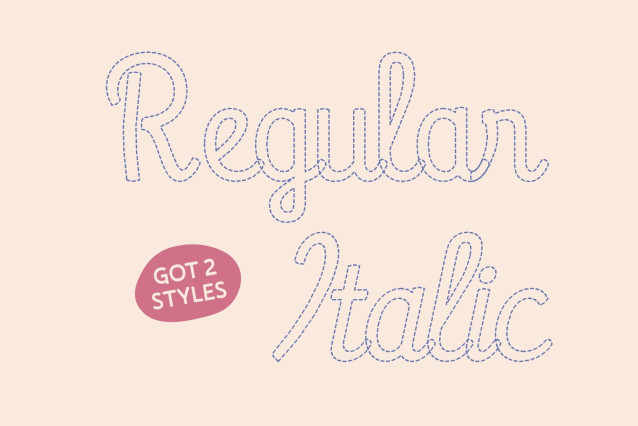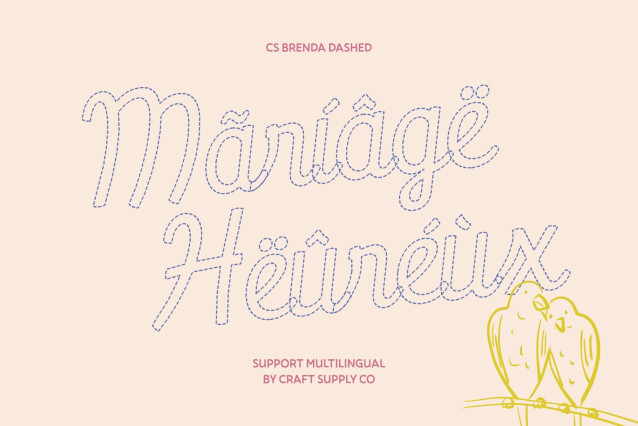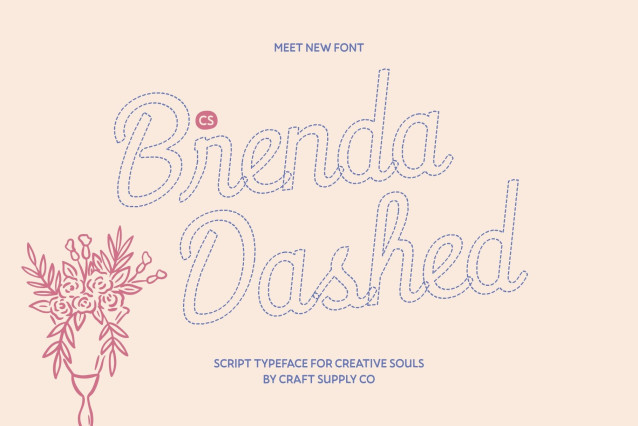
CS Brenda Dashed Font
CS Brenda Dashed – Script Font: Where Minimalism Meets Sweet Elegance
Contemporary Minimalist Style
This is a modern script font that embraces a clean, minimalist handwritten aesthetic. Each character flows smoothly with refined simplicity, creating a polished look while preserving the charm of personal handwriting. The dashed styling transforms the strokes into delicate broken lines, adding a light, creative texture that feels relaxed and expressive.
Beautiful and Aesthetic Flow
Designed with soft curves and graceful movement, this font delivers a sweet and charming visual rhythm. The balance between playful warmth and professional elegance makes it perfect for projects that aim to feel feminine, modern, and approachable. Its gentle dashed strokes create a harmonious layout with a subtle handcrafted feel.